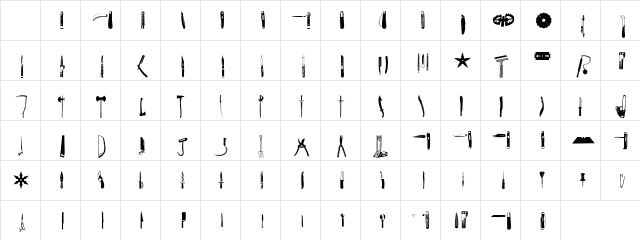
Cut Point is a composed and adaptable typeface that performs quietly and consistently across a wide range of design contexts.
Pro Tip: Use Cut Point in both headline and body roles to test its range before committing to a single application.